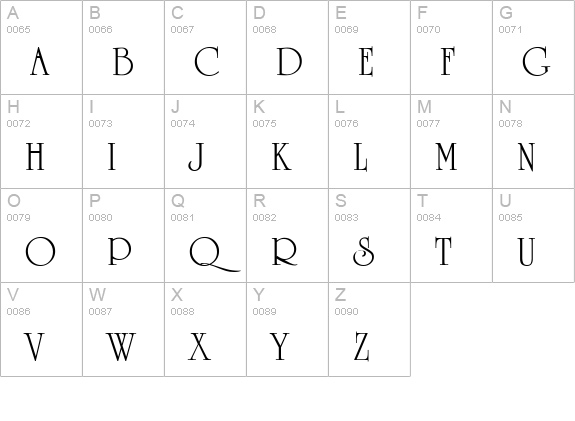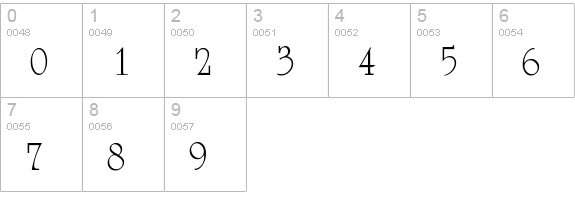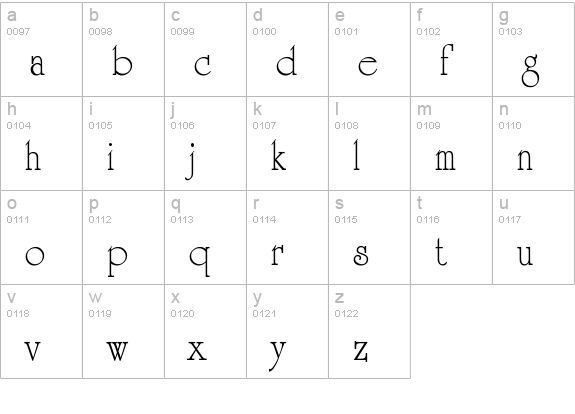
Occidental Font Details
Occidental font is a modern and stylish typeface that exudes elegance and sophistication. Its clean lines and classic design make it perfect for a wide range of projects, from branding to editorial design. The balanced combination of sharp edges and gentle curves gives Occidental a unique and timeless appeal. What sets Occidental font apart is not only its aesthetic qualities but also the fact that it is available for free. You can easily download Occidental font at FontsMarket.com and start using it in your designs right away. Whether you're working on a professional project or a personal creative endeavor, Occidental font is sure to add a touch of class and professionalism.